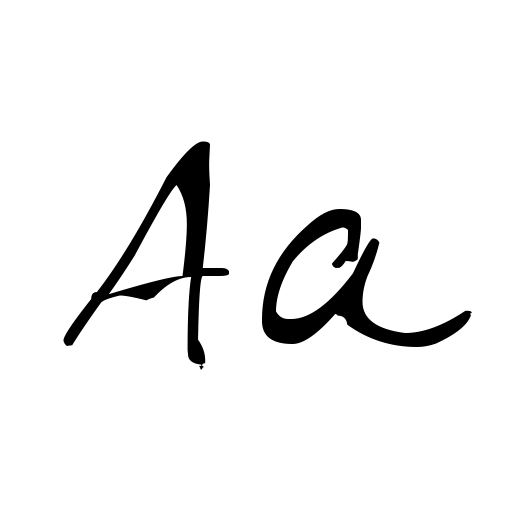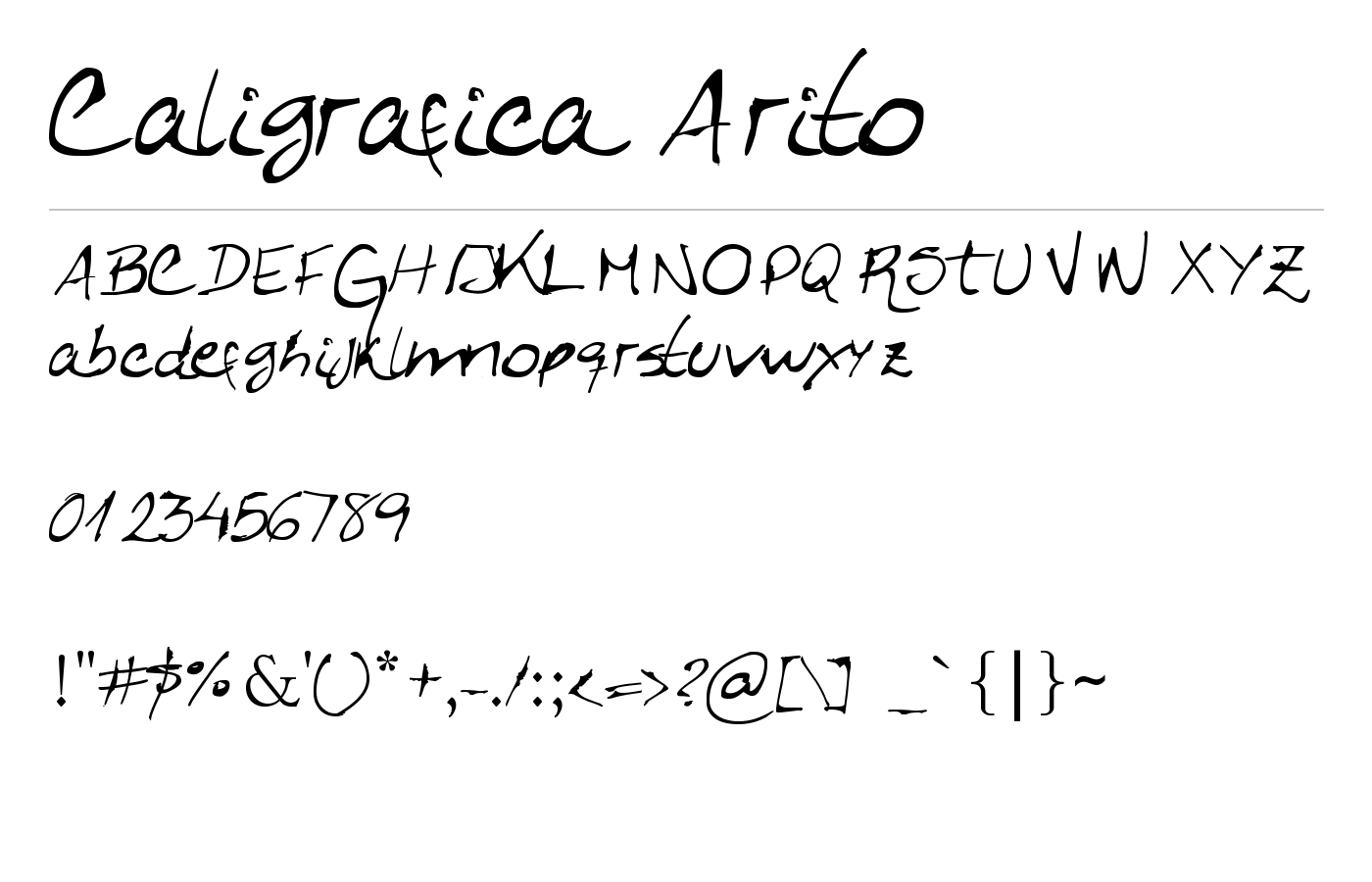
Caligrafica Arito is a lively handwritten script font with an organic, irregular flow that mimics natural penmanship. Its slender strokes and playful letterforms give it a casual, artistic vibe, making it ideal for creative projects, personal branding, and informal invitations where a warm, human touch is desired. This font works best in display contexts, adding personality and charm without sacrificing readability.
Caligrafica Arito Font
About Caligrafica Arito Font